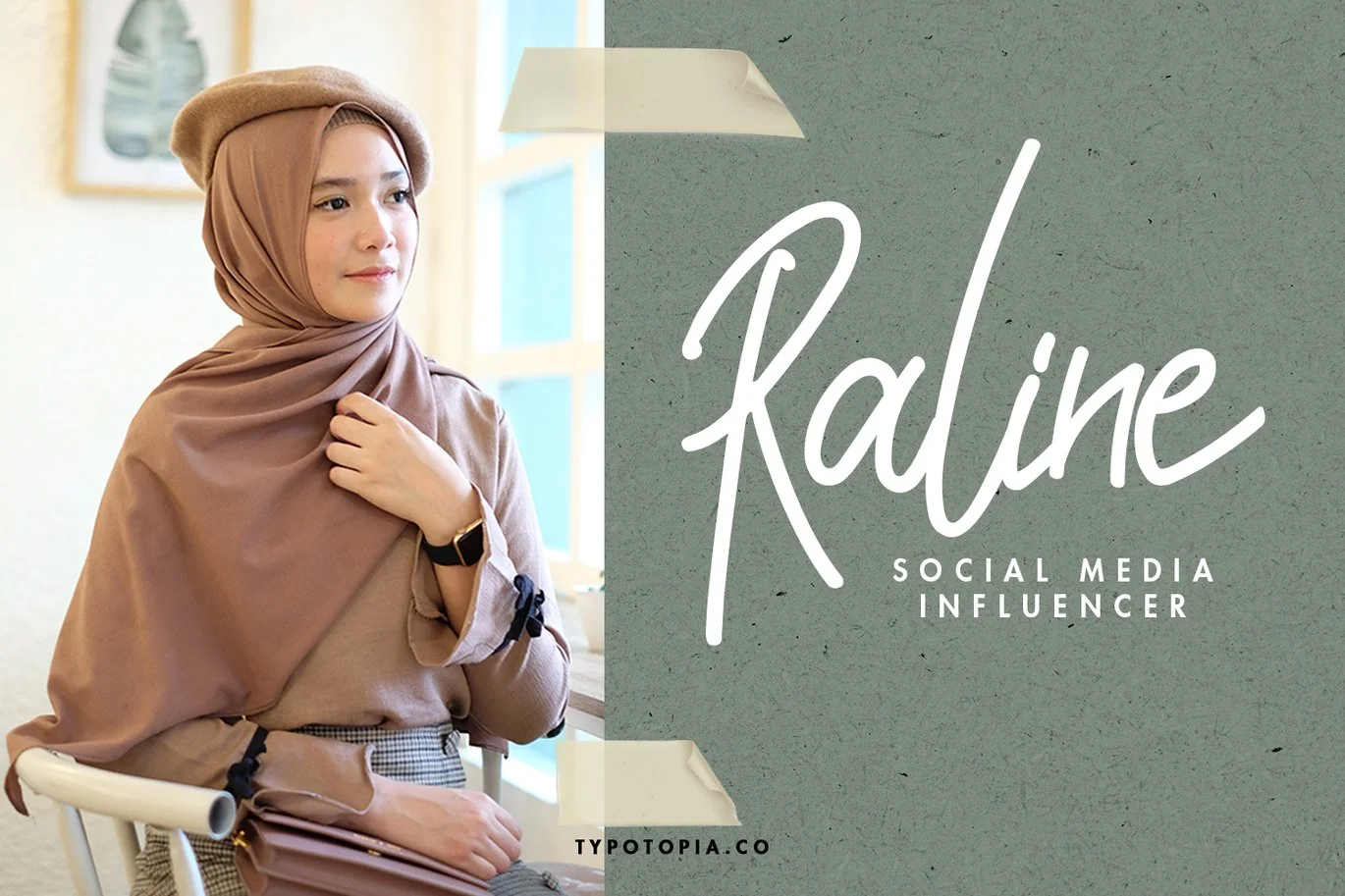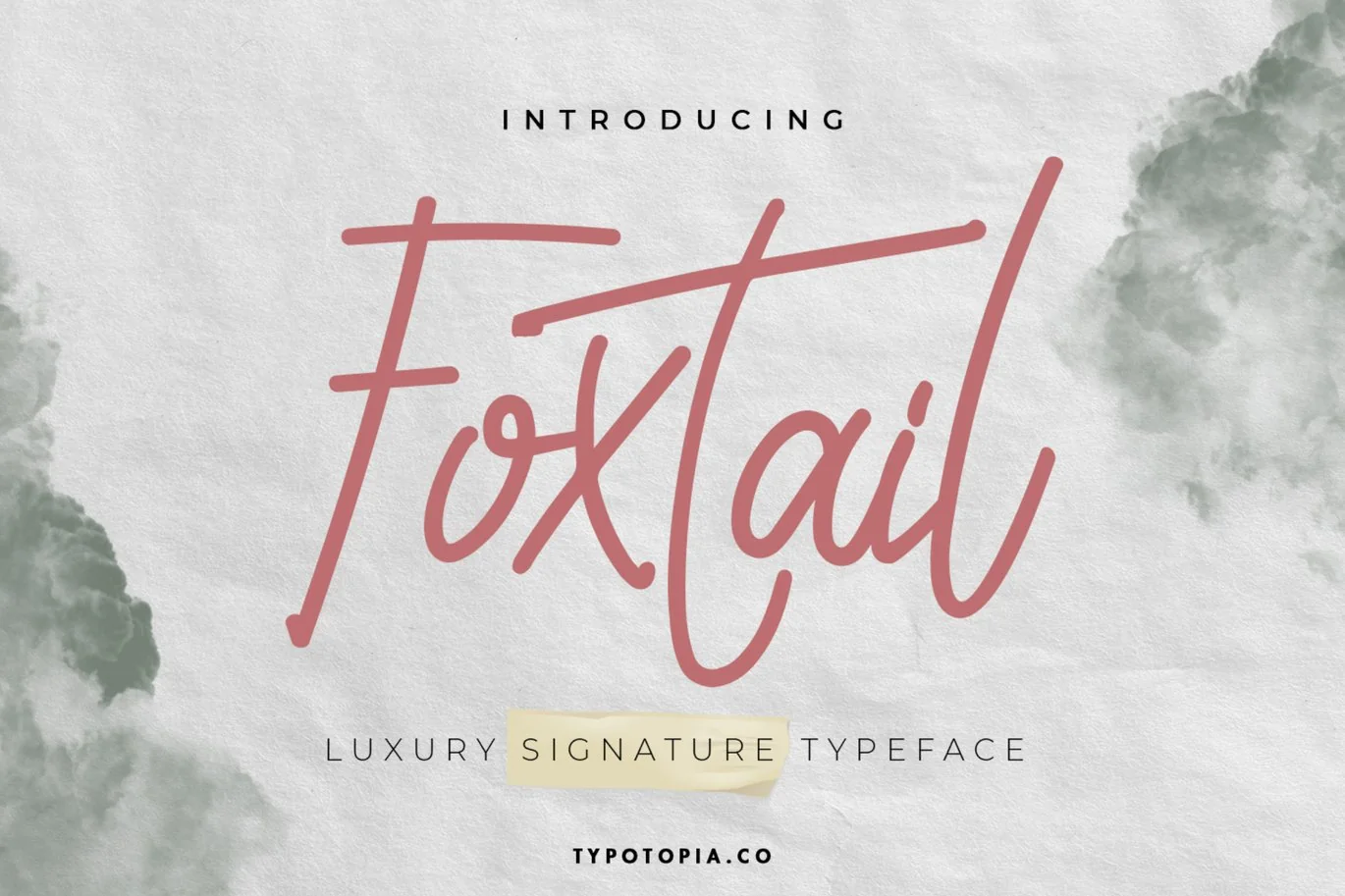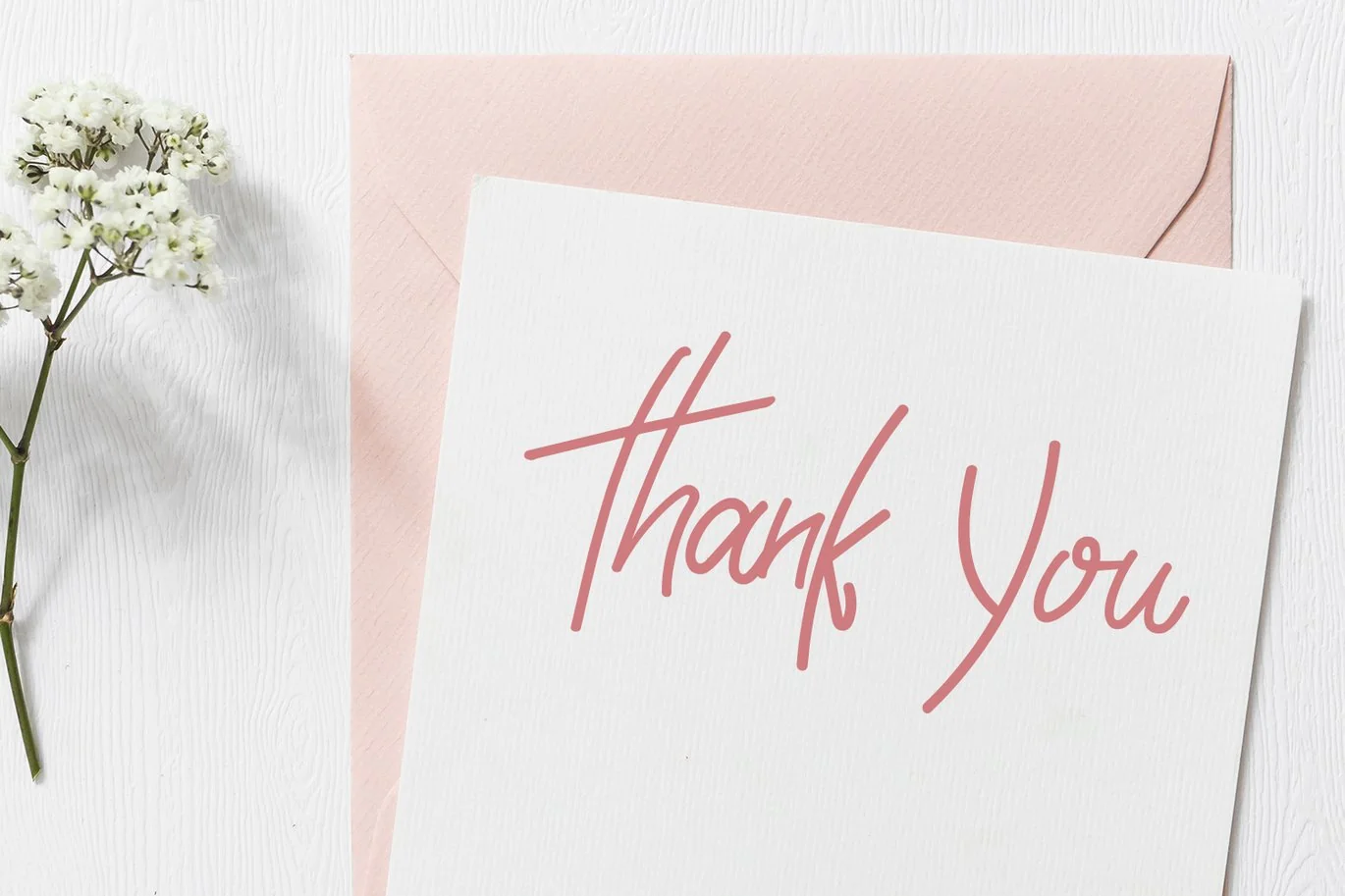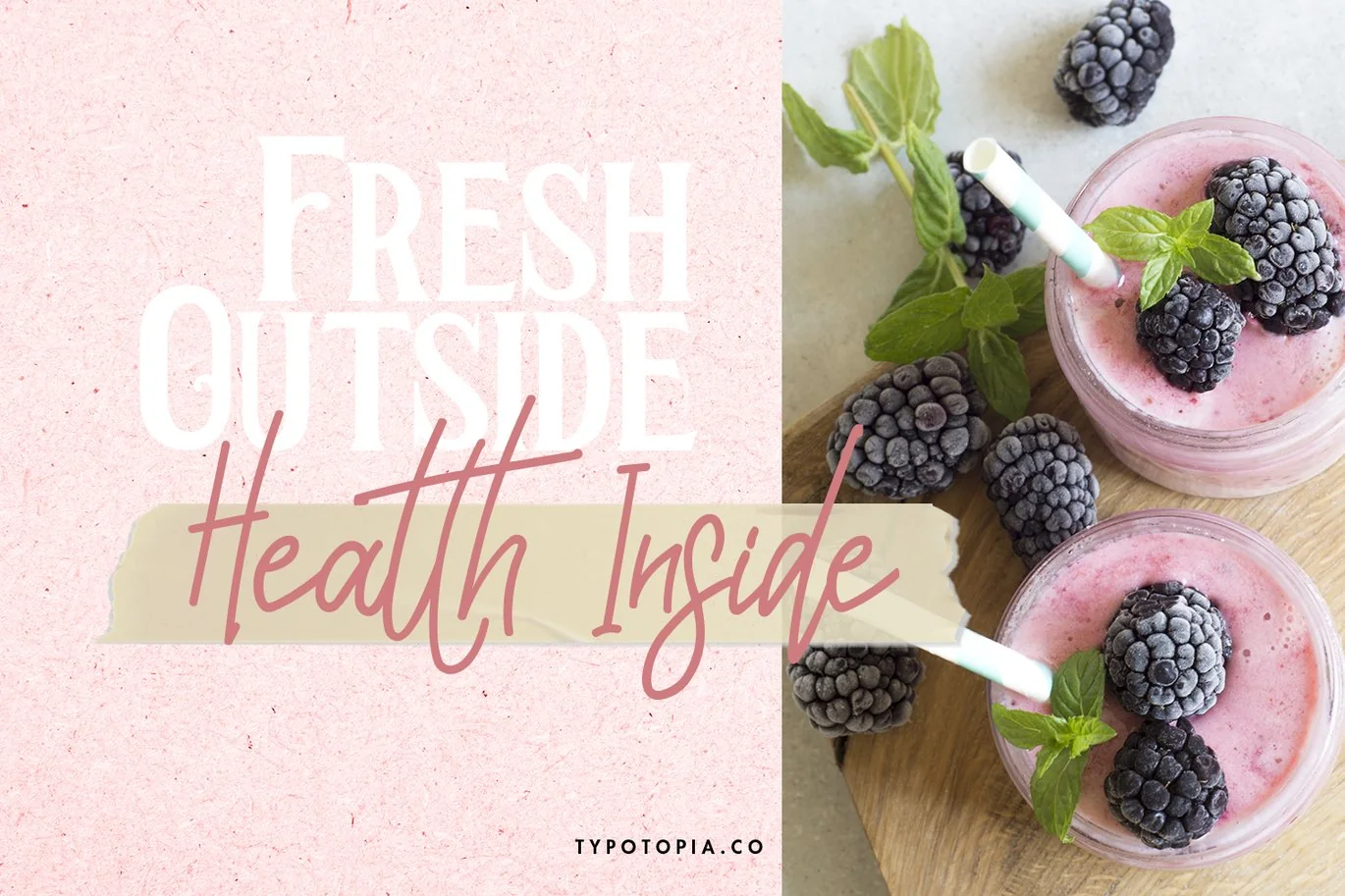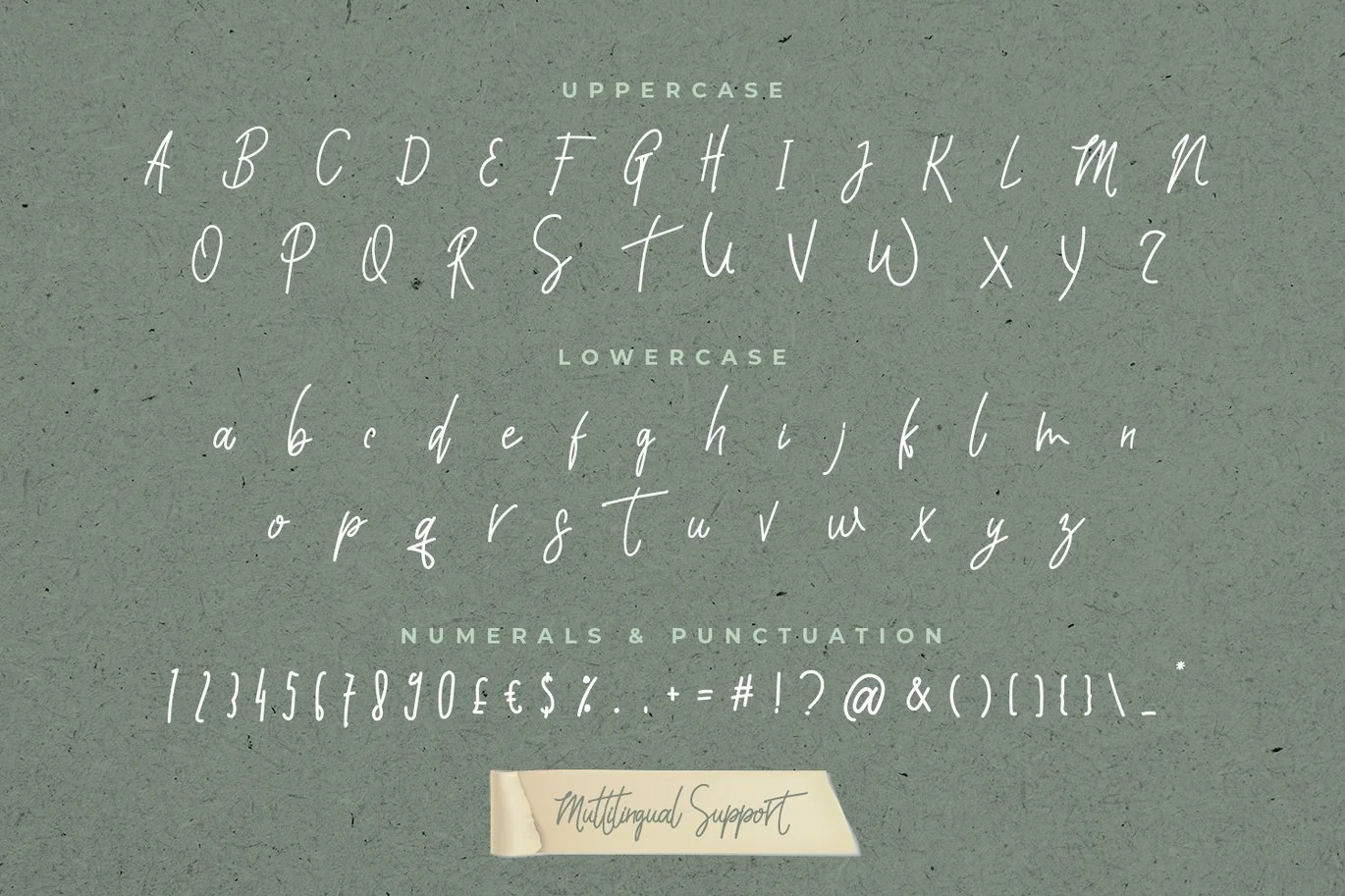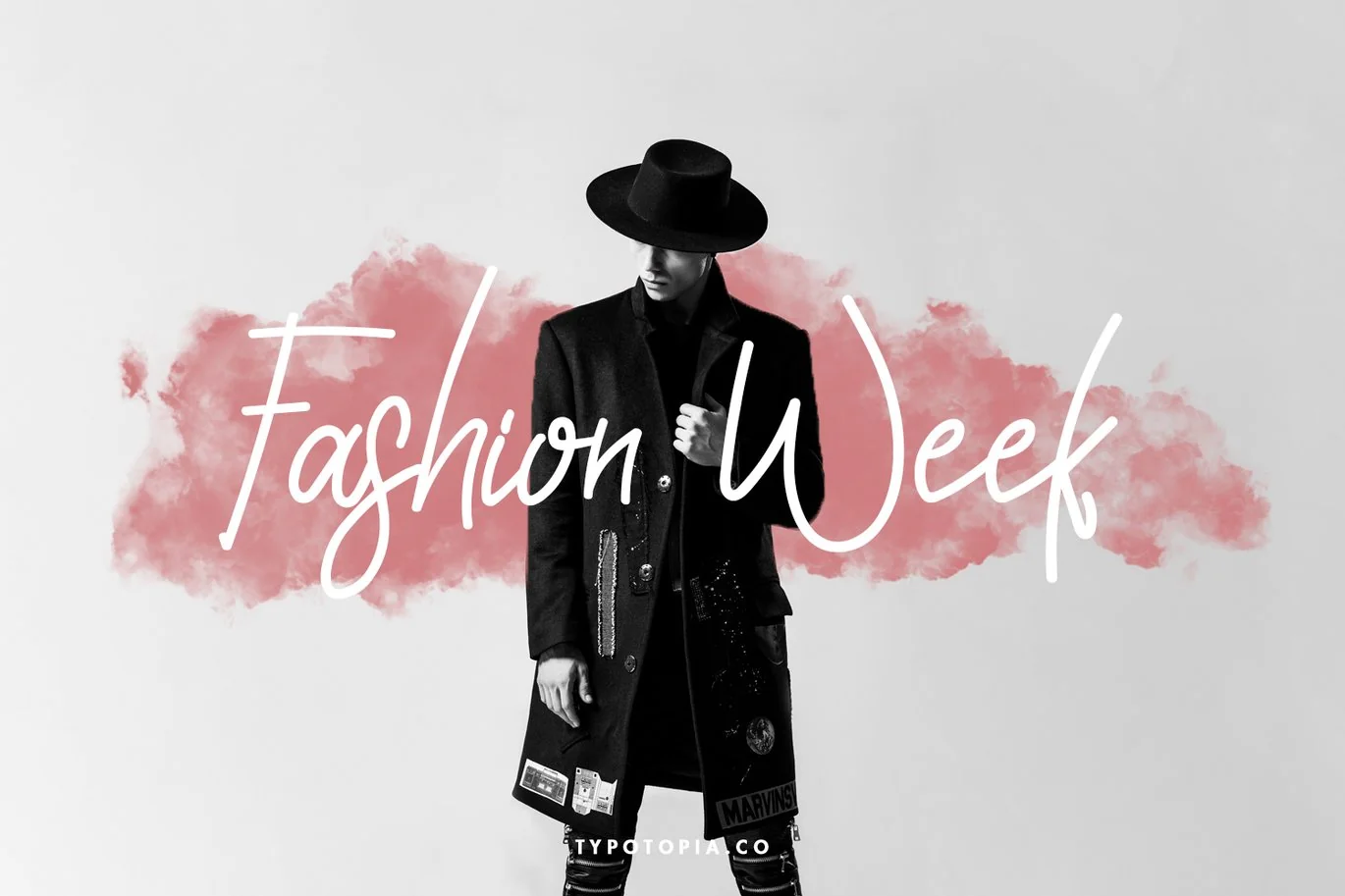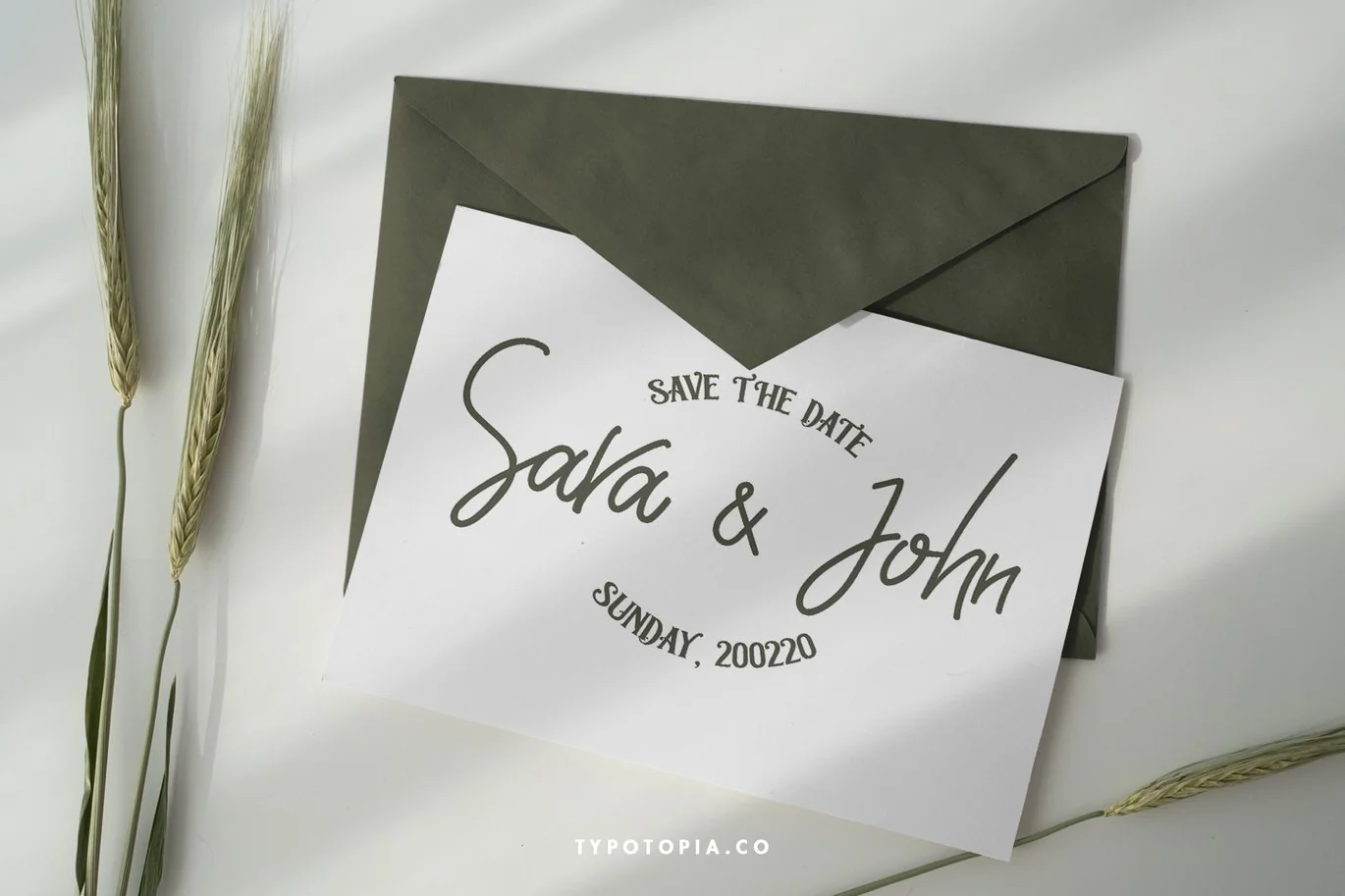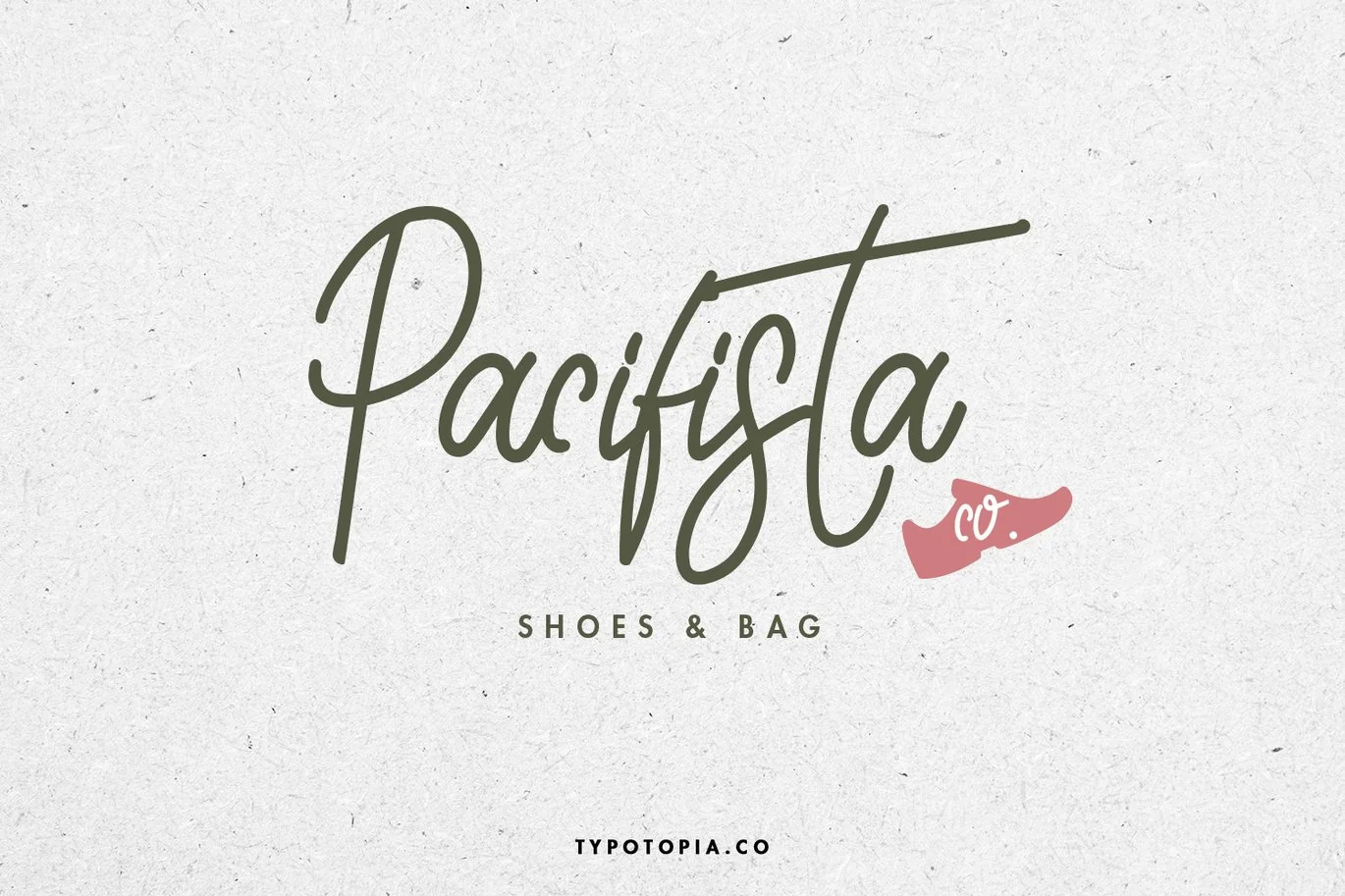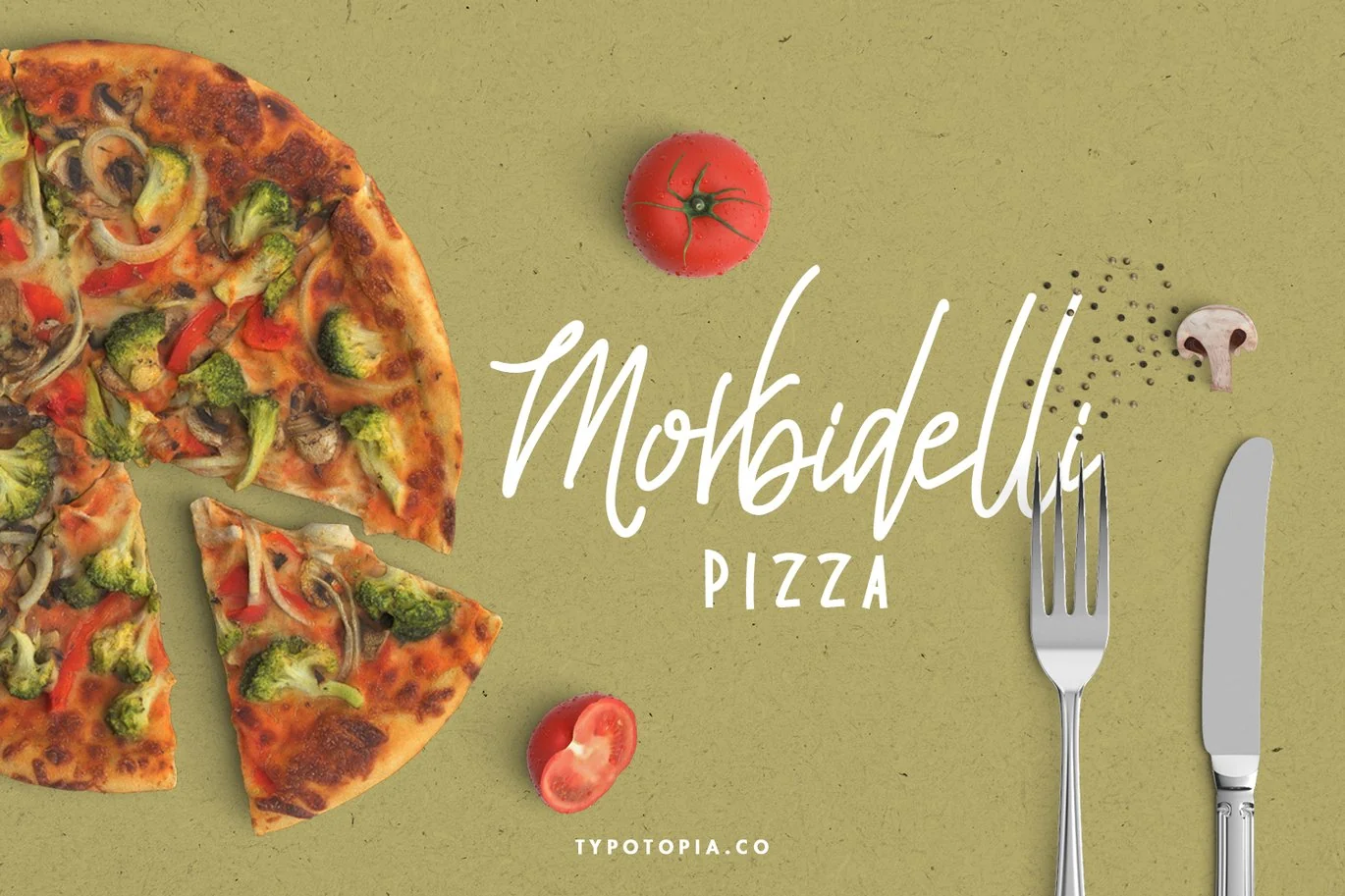
Foxtail Handwriting Font
Introducing Foxtail Handwriting Font. This perfect for the purposes of designing templates, brochures, videos, advertising branding, logos and more.
Fonts include multilingual support for; Afrikaans, Albanian, Catalan, Czech, Danish, Dutch, English, Estonian, Finnish, French, German, Hungarian, Italian, Latvian, Lithuanian, Norwegian, Polish, Portugese, Slovak, Slovenian, Spanisch, Swedish.